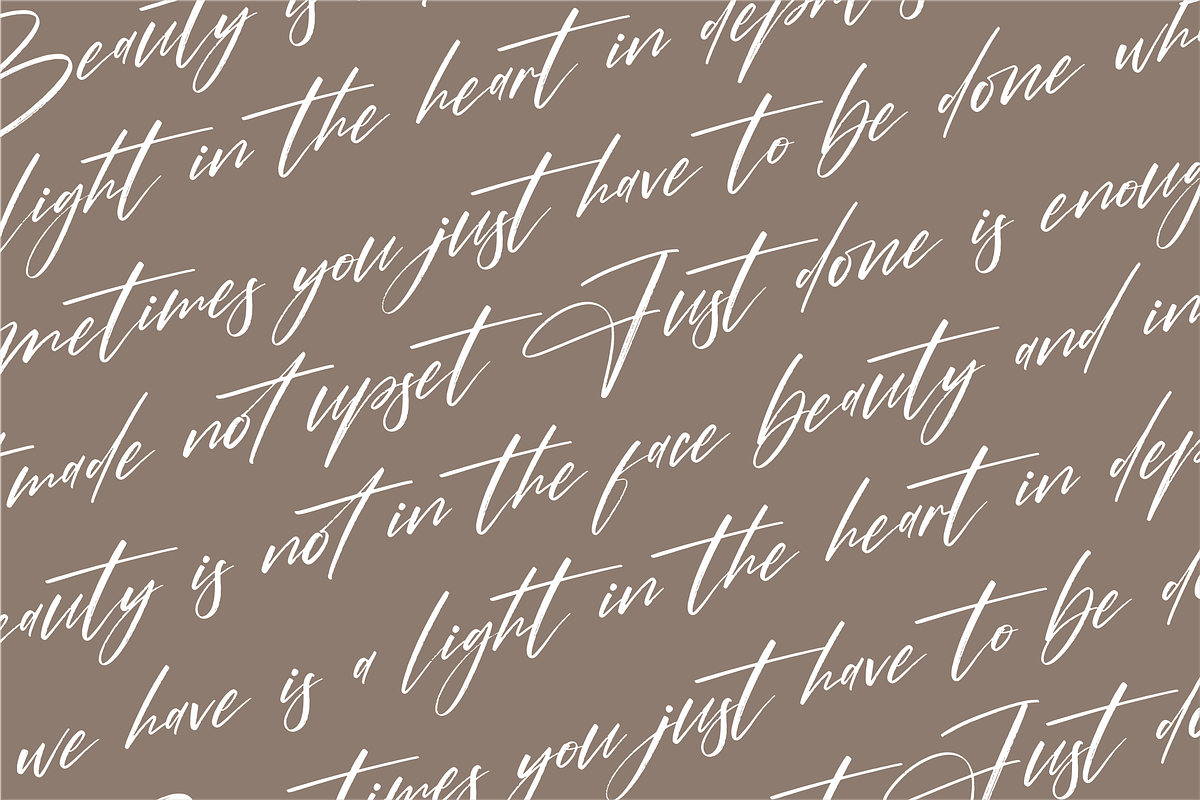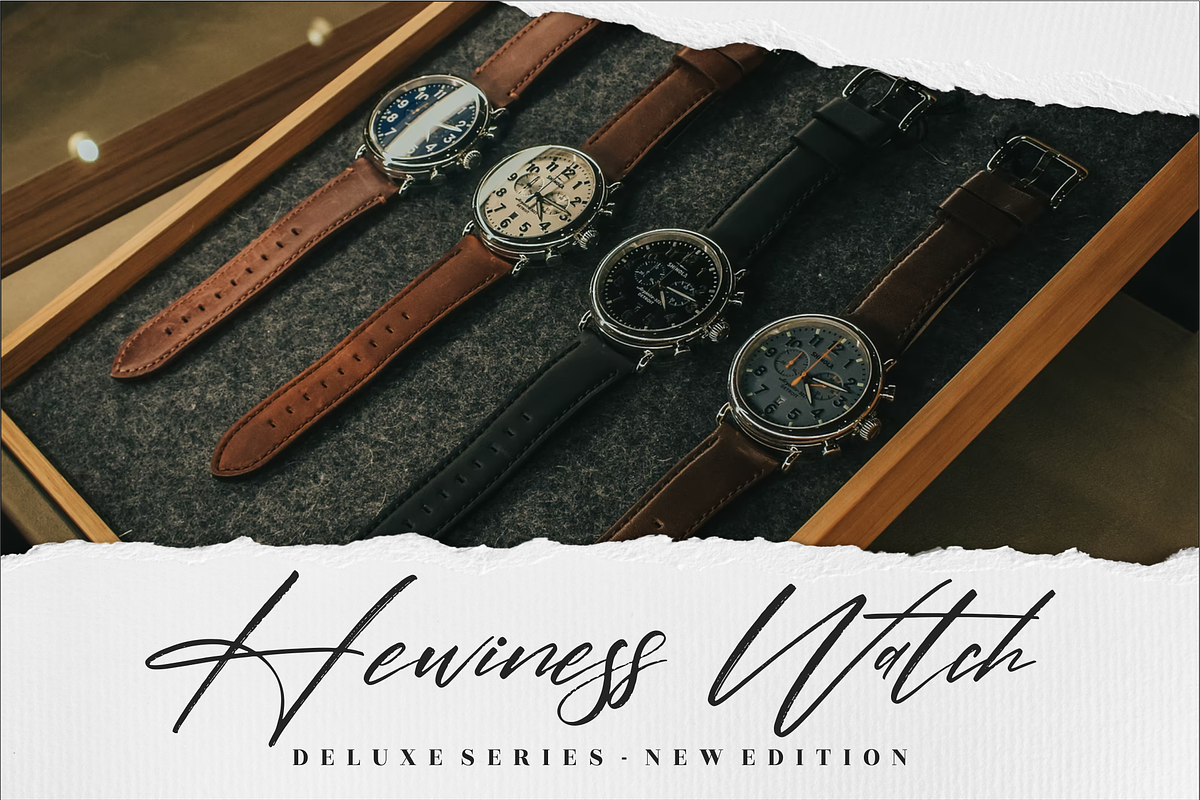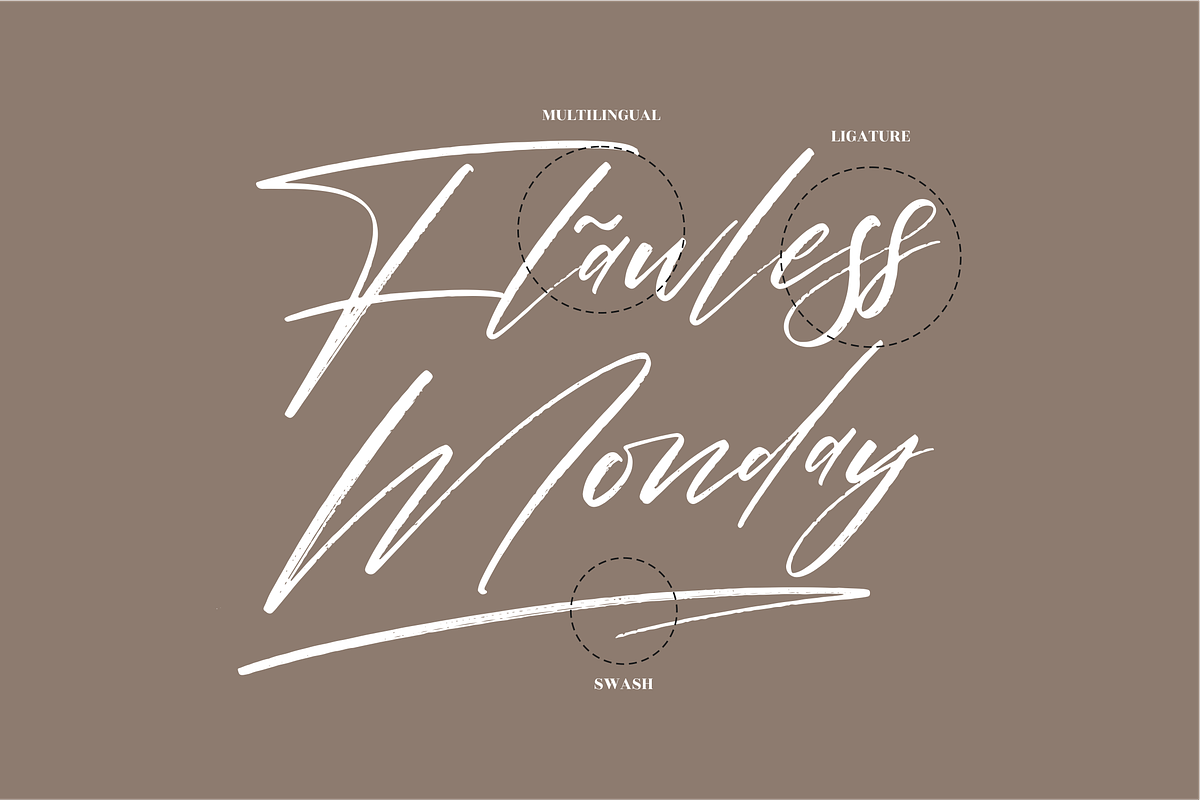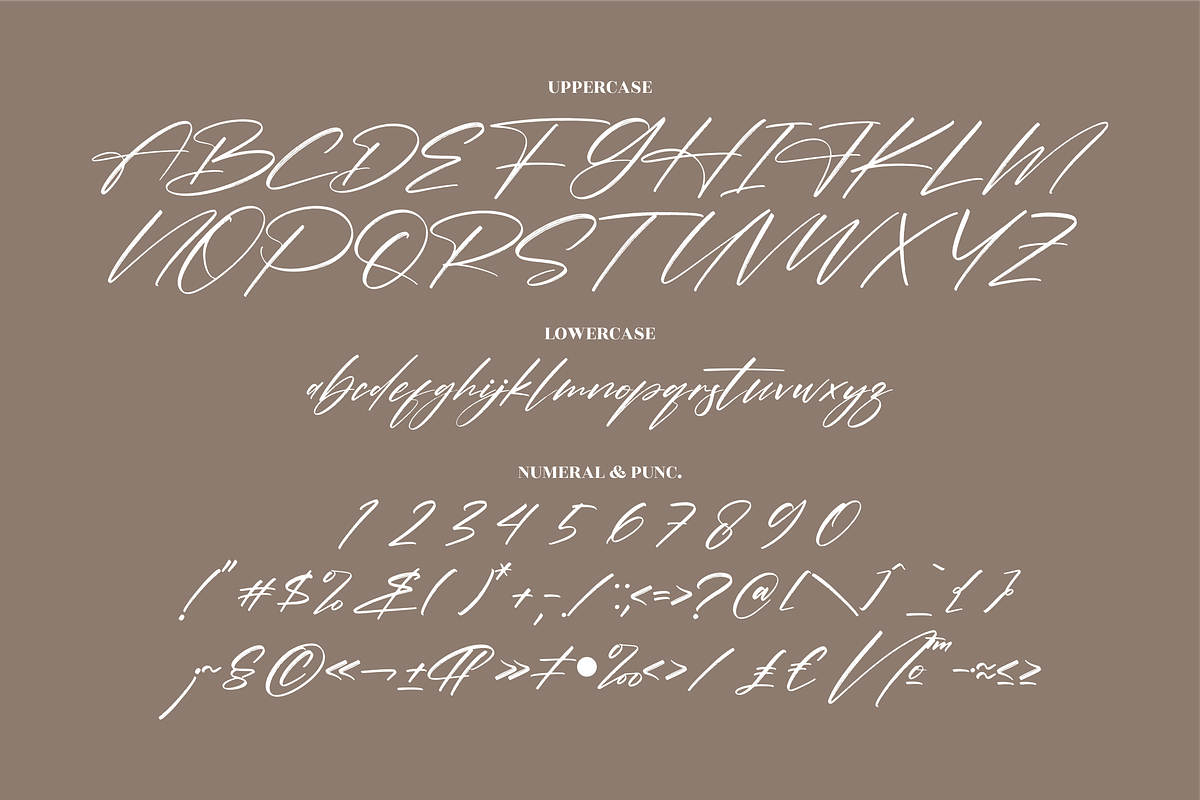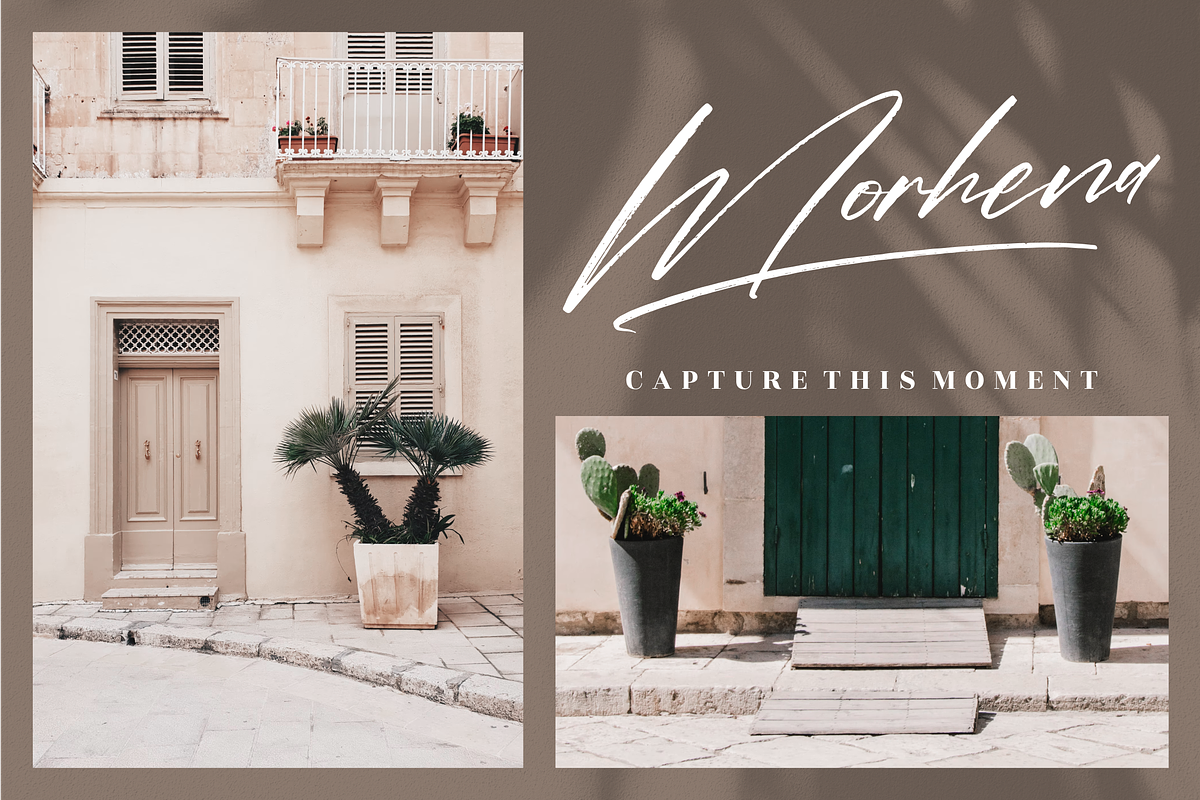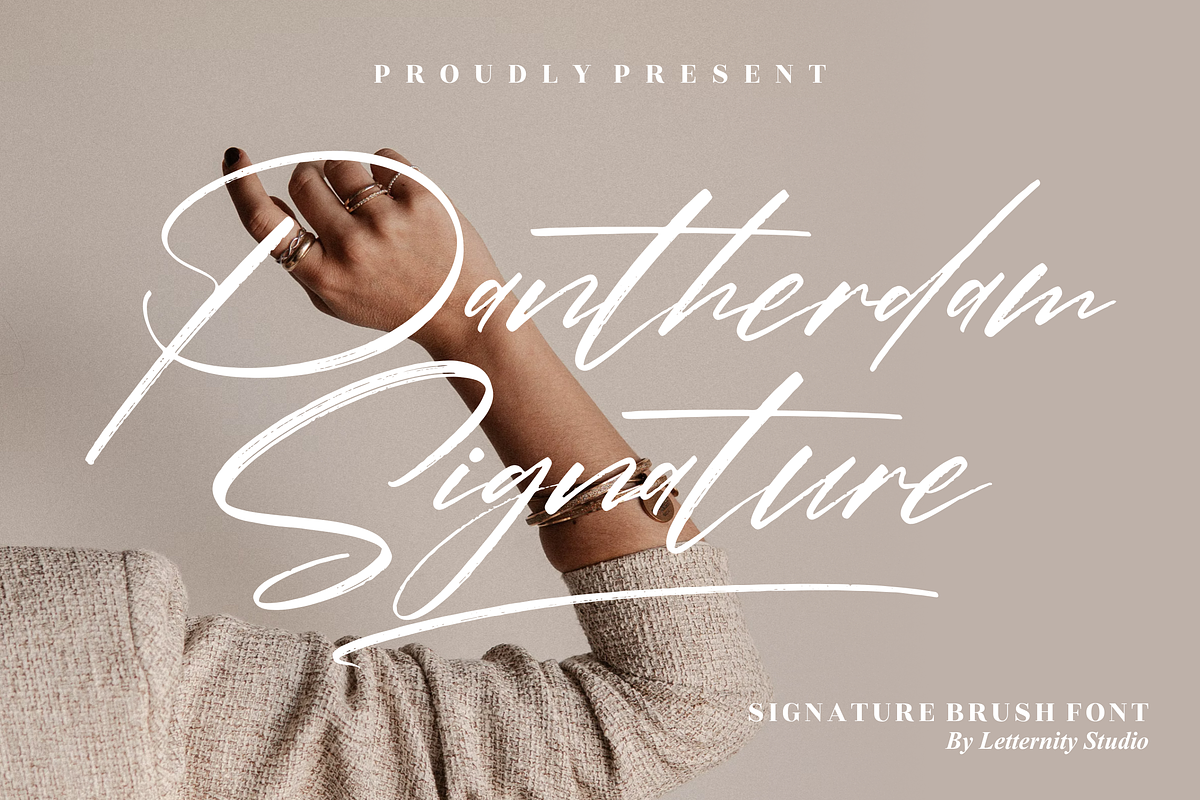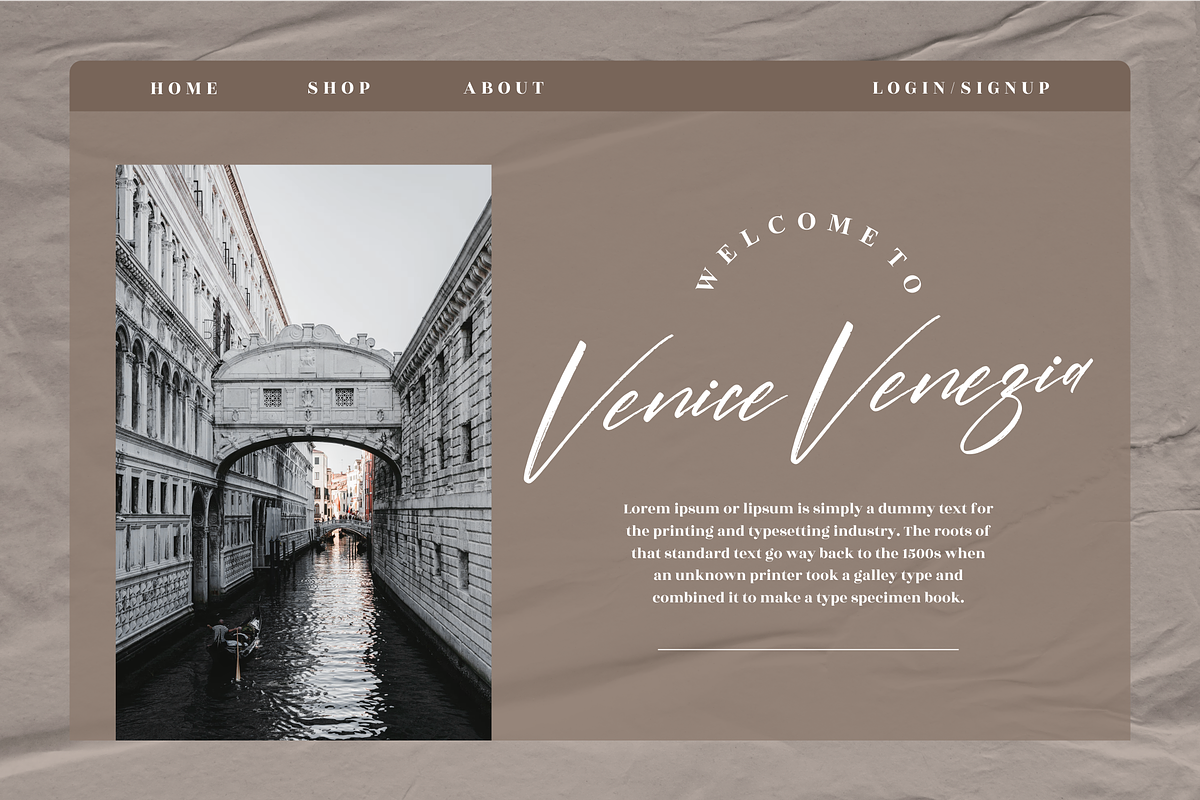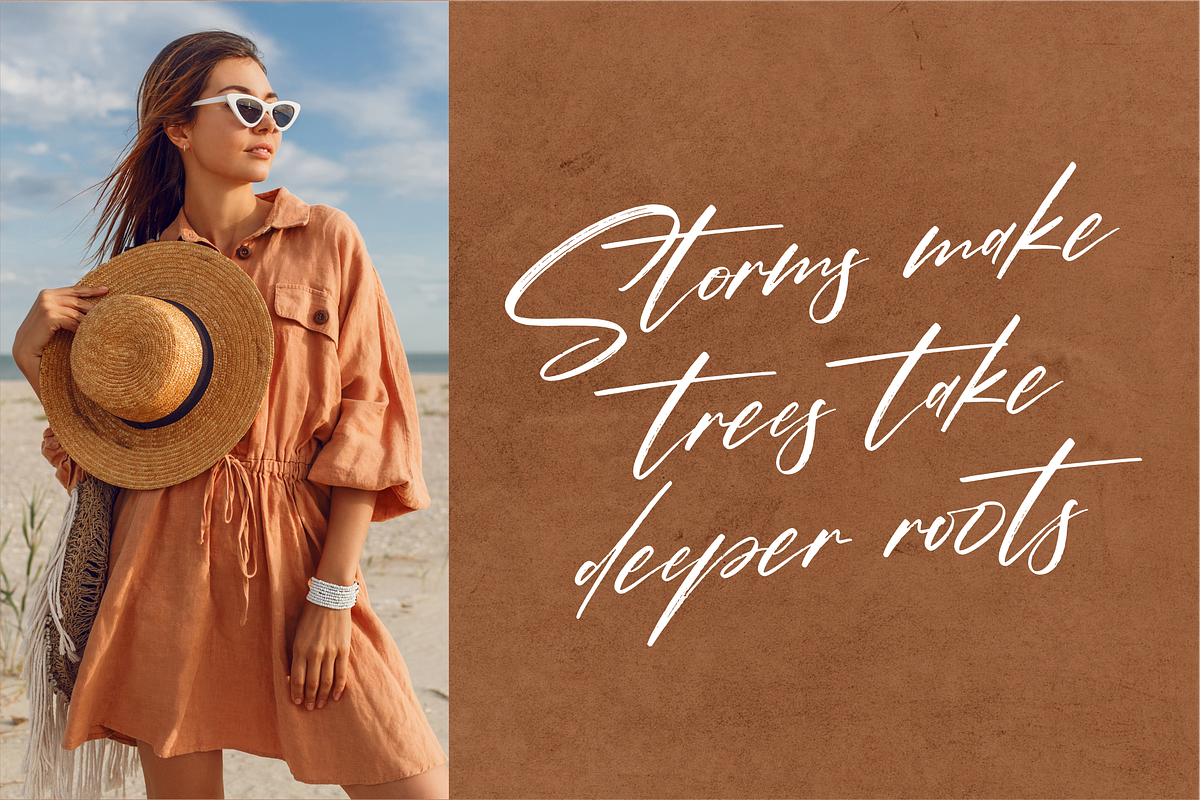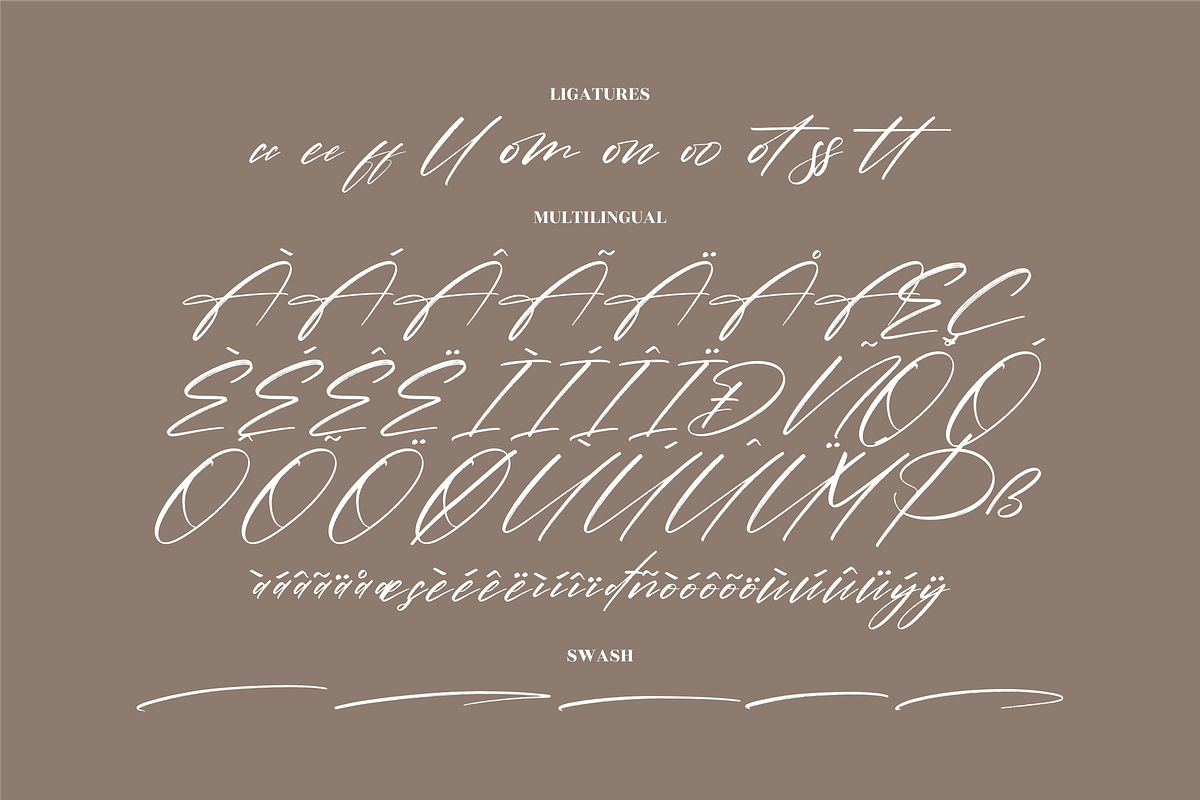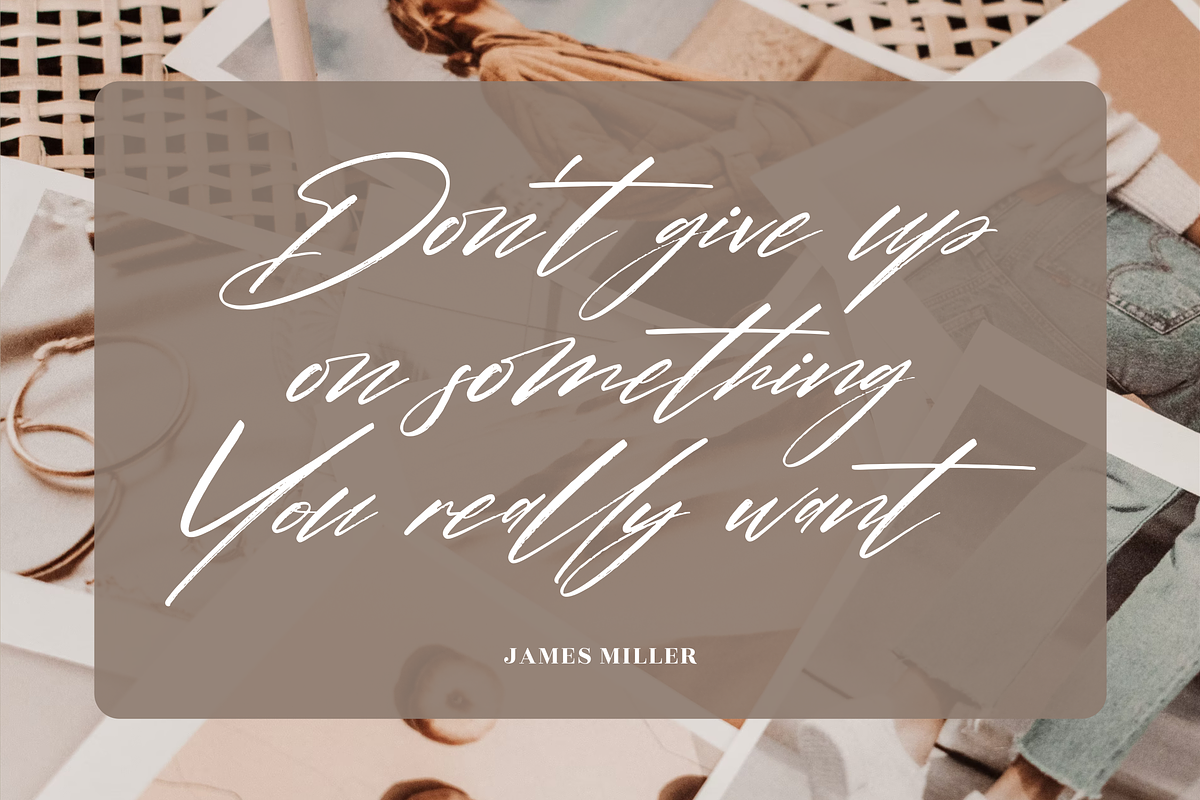
Pantherdam Signature Brush
Pantherdam Signature – Signature Brush Font, from Letternity Studio, is a beautiful script font, suitable for any projects such as: logos, branding projects, homeware designs, product packaging, mugs, quotes, posters, shopping bags, t-shirts, book covers, name card, invitation cards, greeting cards, label, photography, watermark, special events, and all your other lovely projects that need a beautiful script taste.